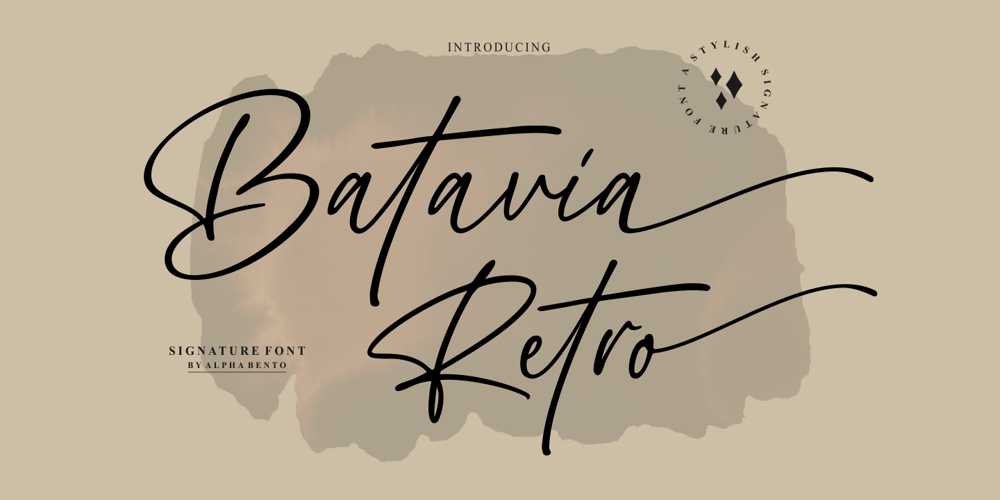
Batavia Retro Font Family was designed by Rinaldi Novianda and published by Alpha Bento. Batavia Retro contains 1 styles and family package options. Introducing a new handwritten font, Batavia Retro, a modern and minimal typeface packed with handwritten ligatures. Batavia Retro adds chic elegance to websites, wedding stationery, modern logos and branding, social media quotes and more. Great for signature logos and more.Batavia Retro FeaturesFull Set of standard alphabet and punctuationExtra set of Alternate lowercaseExtra stylistic alternates and ligaturesPUA EncodedMultilingual Characters